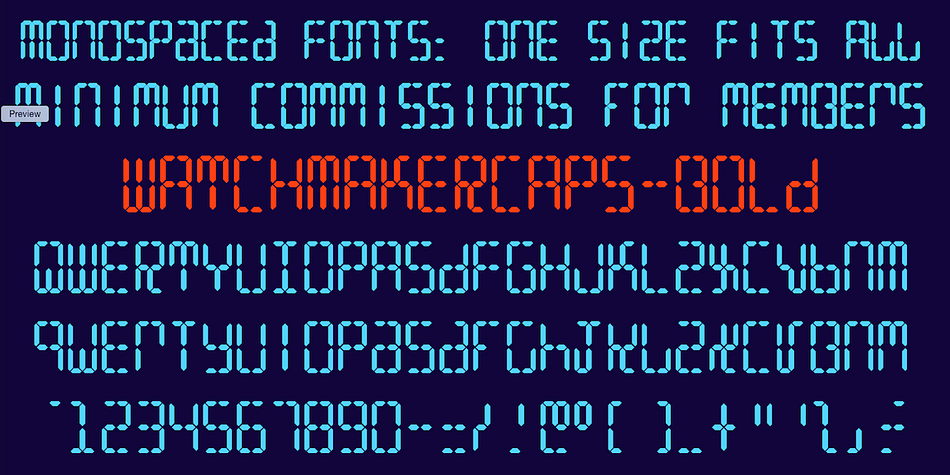
Watchmaker
Designed by Robert Schenk, Watchmaker is a pixel font family. This typeface has two styles and was published by Ingrimayne Type.
Watchmaker was designed with the limitations imposed by a simple LCD that is meant only to display numbers. Most LCD typefaces use some diagonals to make the letters look better. This one does not and from it you can see why a few diagonals are needed to display letters on a LCD. Watchmaker is monospaced and comes in plain and bold weights.